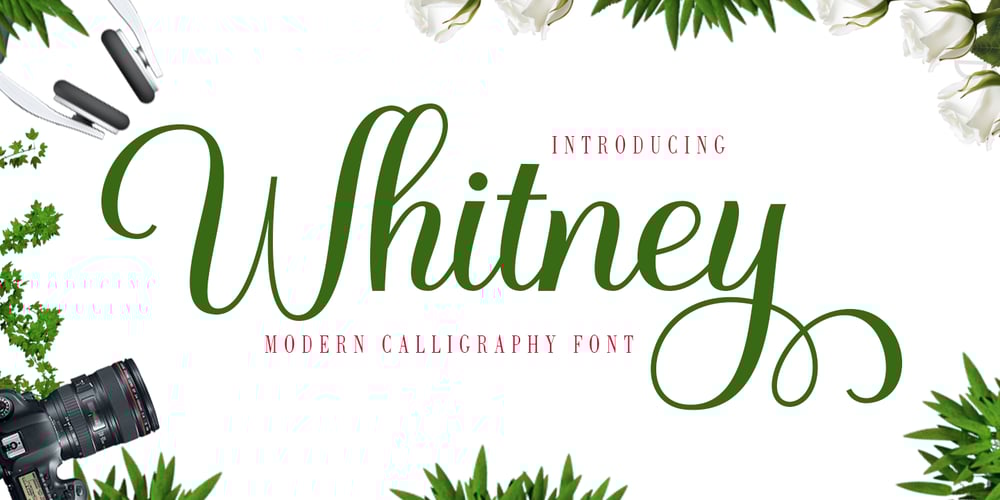
Whitney Font Family was designed by khaidir and published by Gatype. Whitney contains 1 styles and family package options. Whitney is a modern script with handwriting, decorative characters, designed to perfectly combine informal, sassy, romantic, sweet scripts. Hand-drawn design elements allow you to create many beautiful typographic designs in an instant like branding, logos, web design and editorial, prints, invitations, crafts, quotes, and more.Whitney includes OpenType stylistic alternates, ligatures and International support for most Western Languages. To enable the OpenType Stylistic alternates, you need a program that supports OpenType features such as Adobe Illustrator CS, Adobe Indesign & CorelDraw X6-X7, Microsoft Word 2010 or later versions.How to access all alternative characters using Adobe Illustrator: https://www.youtube.com/watch?v=XzwjMkbB-wQWhitney Script is coded with PUA Unicode, which allows full access to all the extra characters without having special designing software. Mac users can use Font Book , and Windows users can use Character Map to view and copy any of the extra characters to paste into your favorite text editor/app.How to access all alternative characters, using Windows Character Map with Photoshop: https://www.youtube.com/watch?v=Go9vacoYmBwIf you have any question, don’t hesitate to contact me by email :chaidirgata@gmail.com